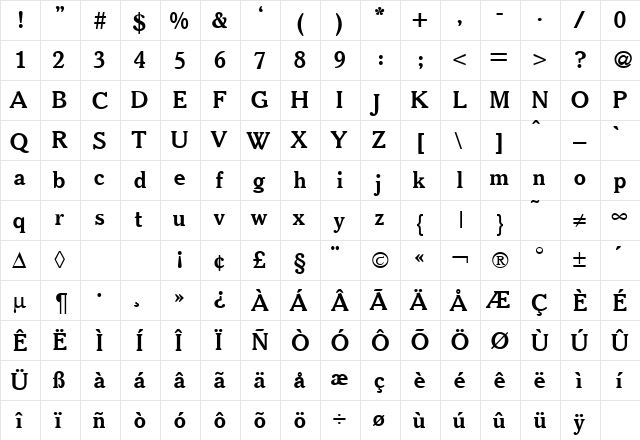
Sorbet Bold Font Preview
Sorbet Bold
Design Context for Sorbet Typeface
Sorbet is a composed and adaptable typeface that performs quietly and consistently across a wide range of design contexts. The heavy weight commands attention and anchors typographic hierarchies.